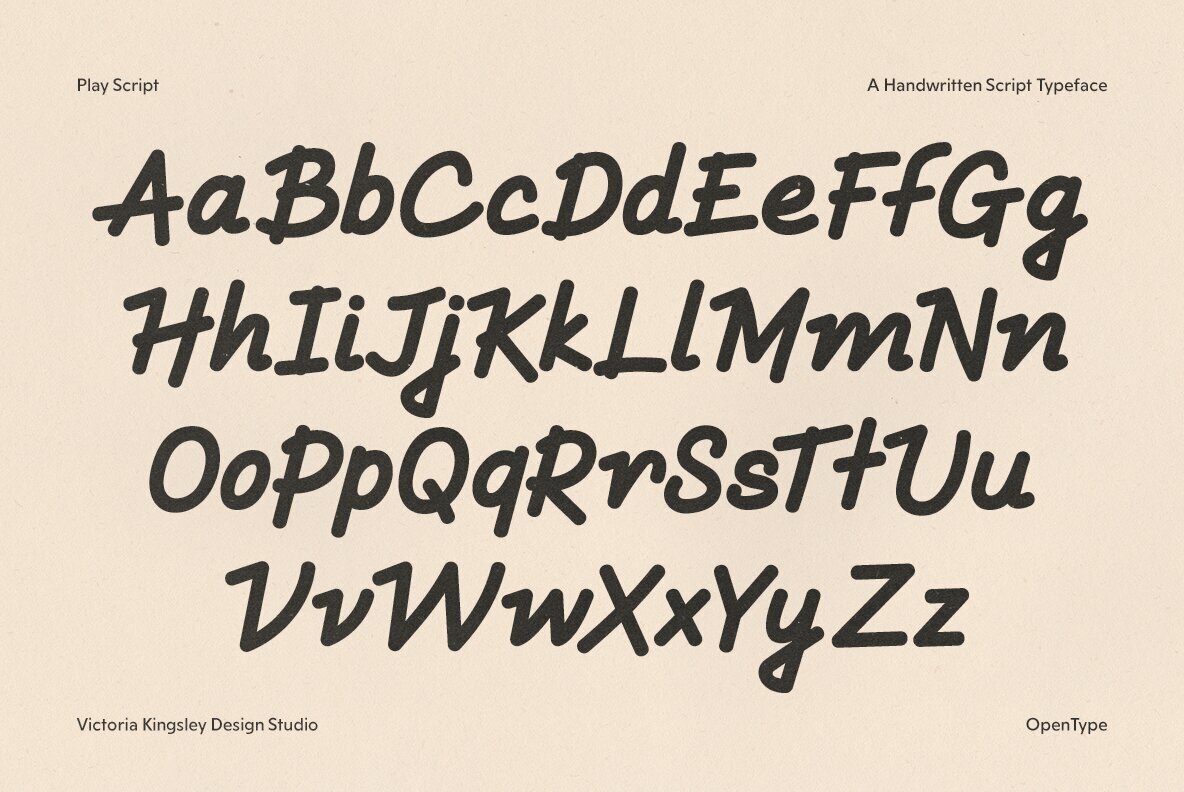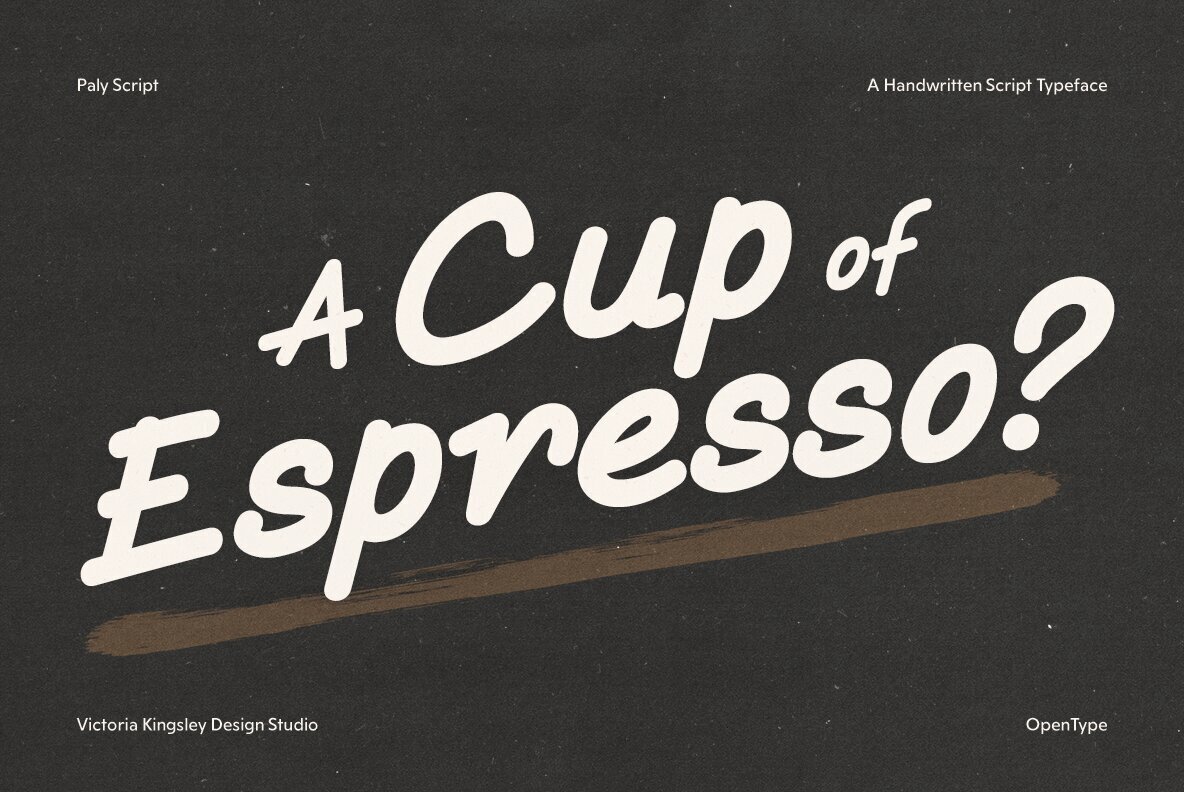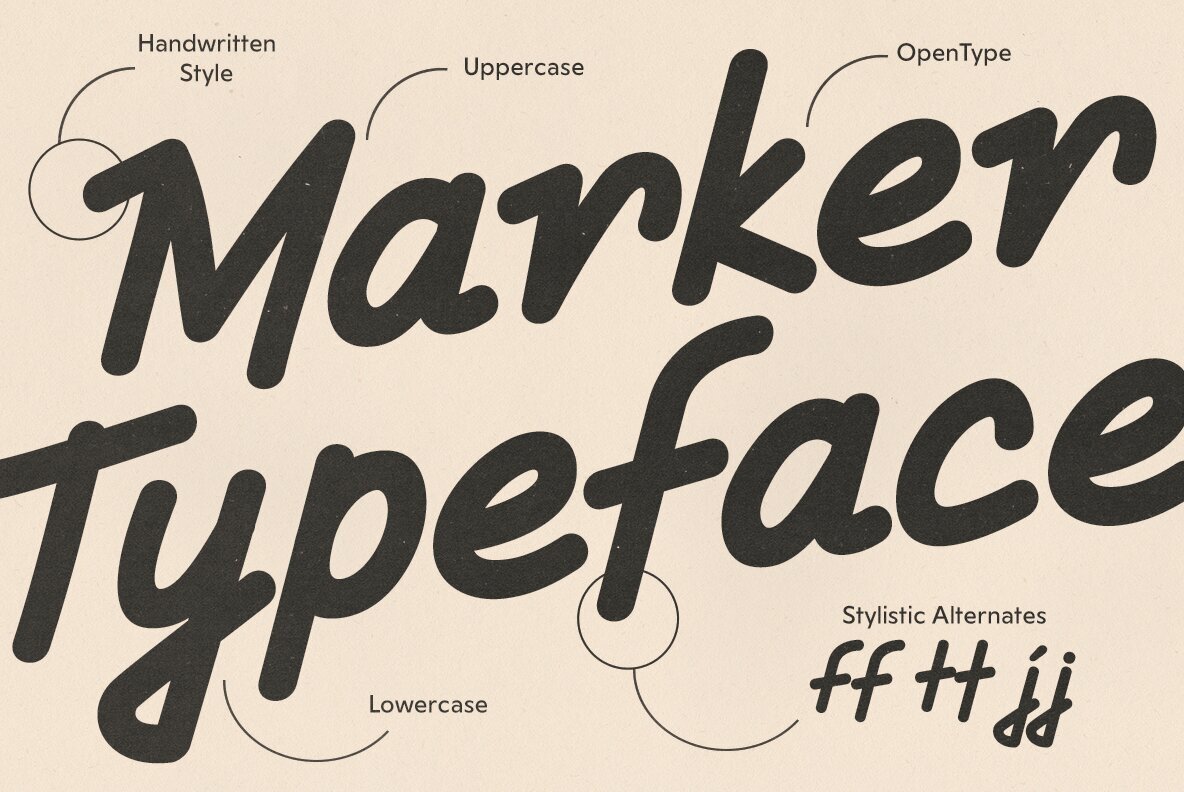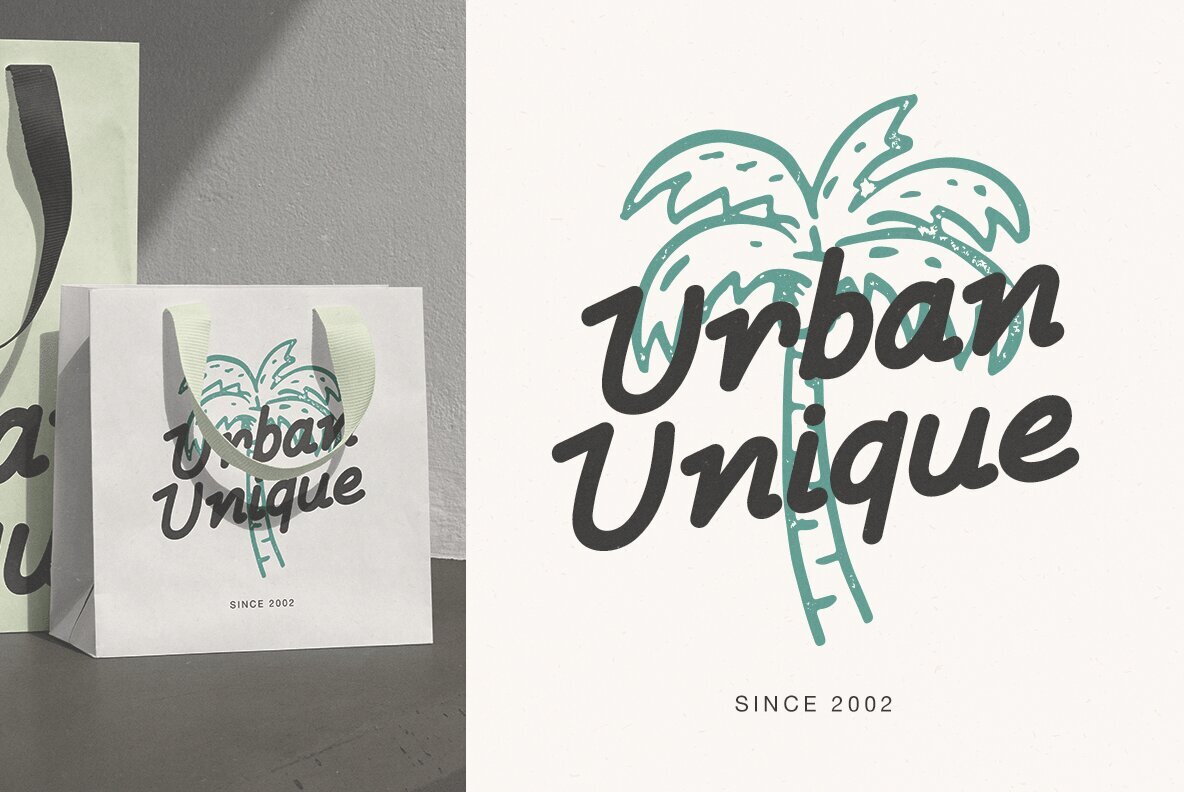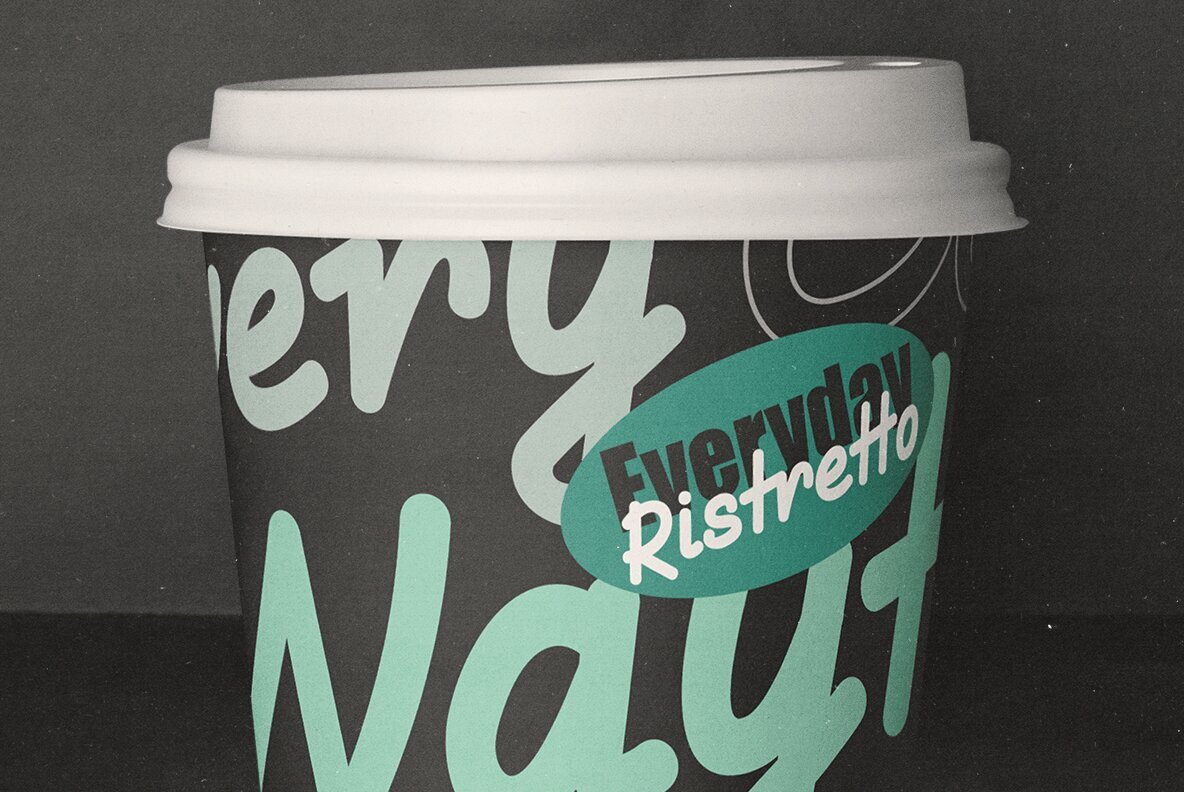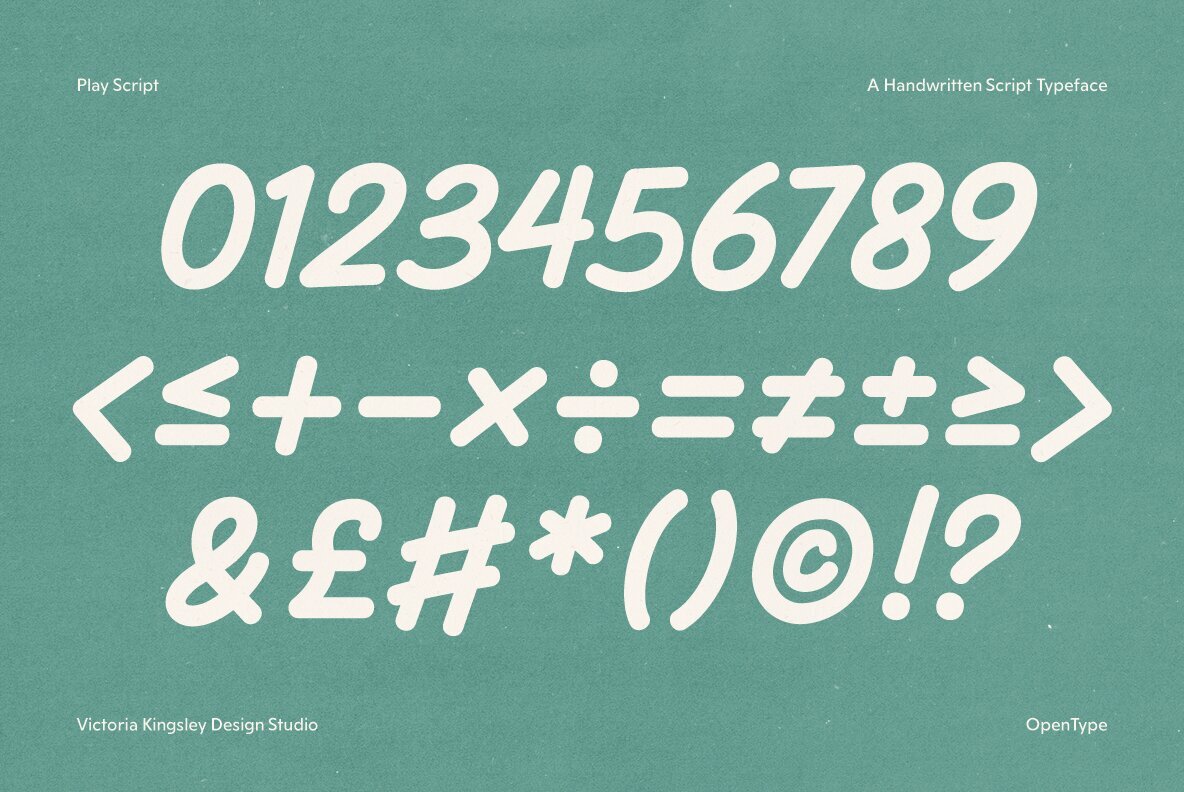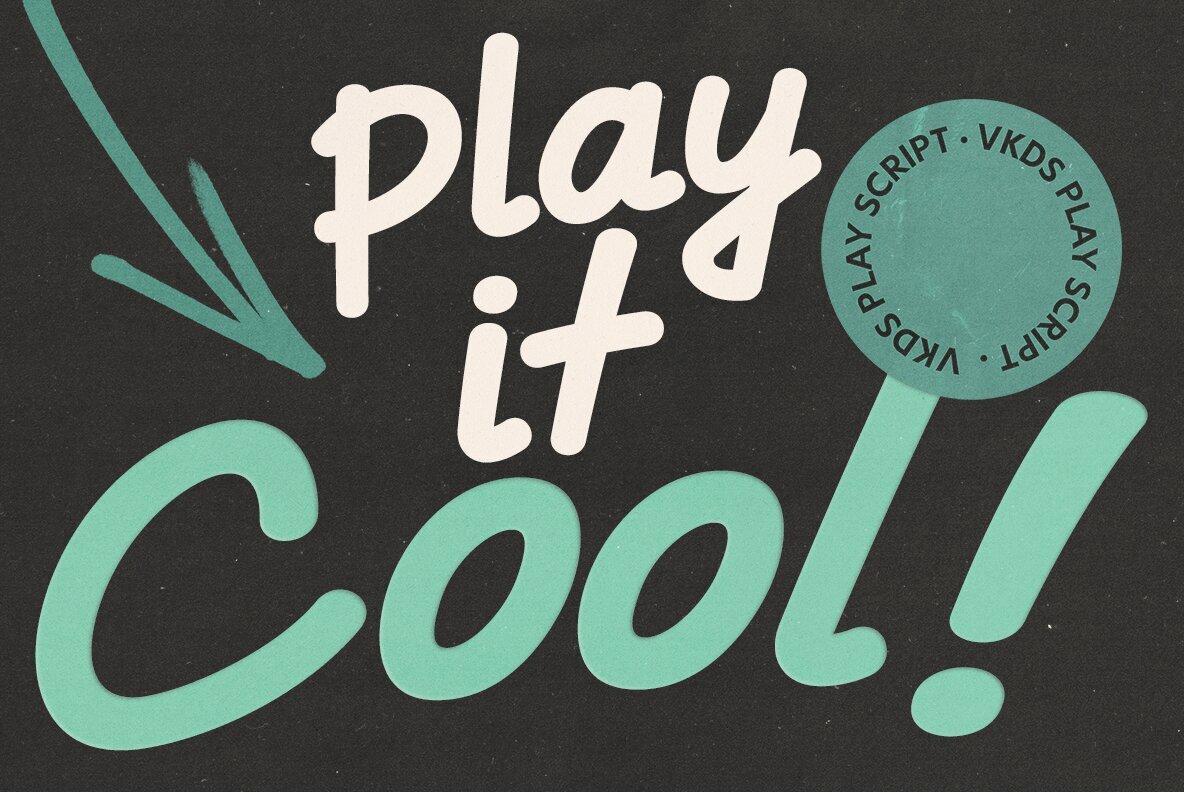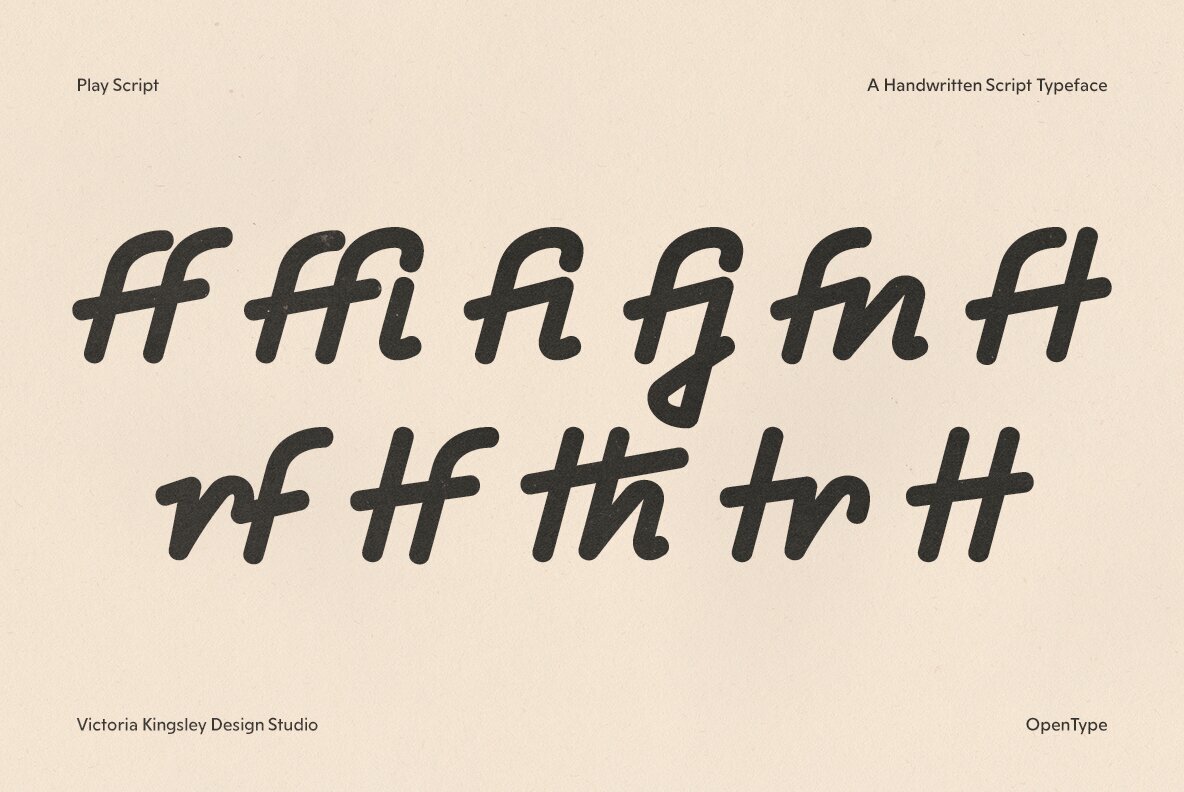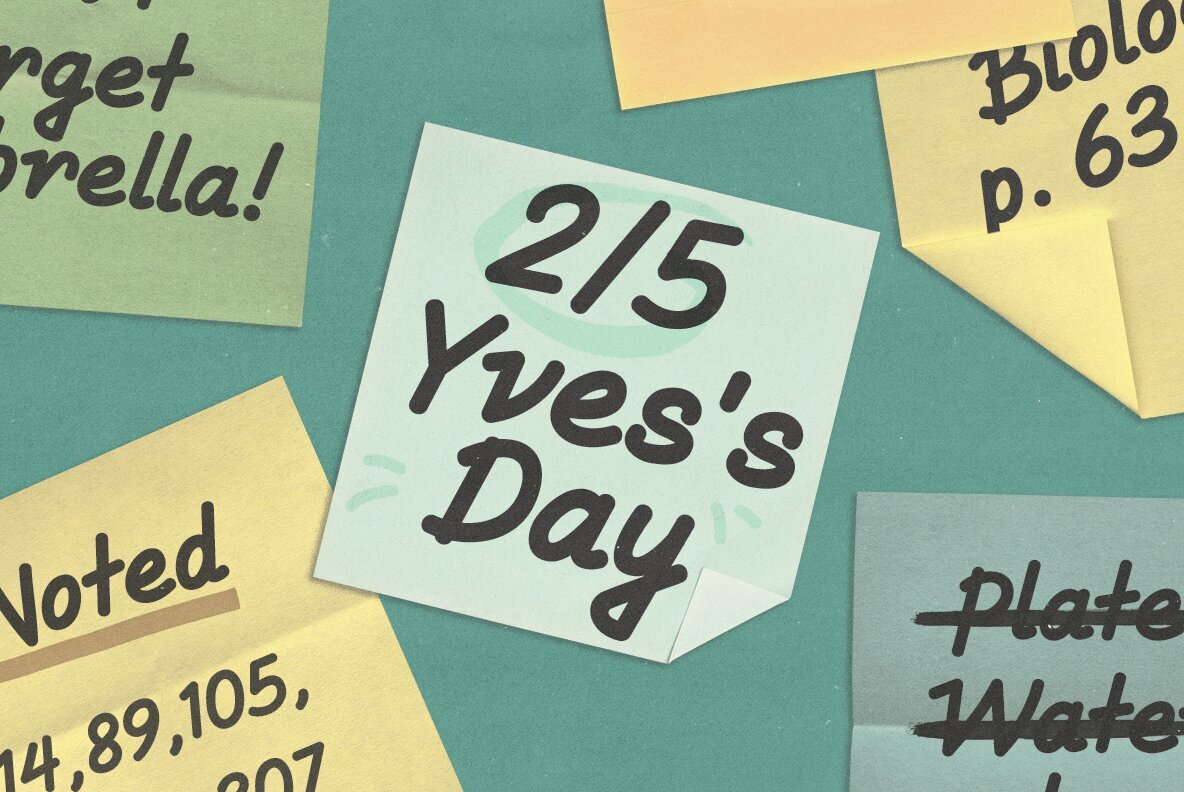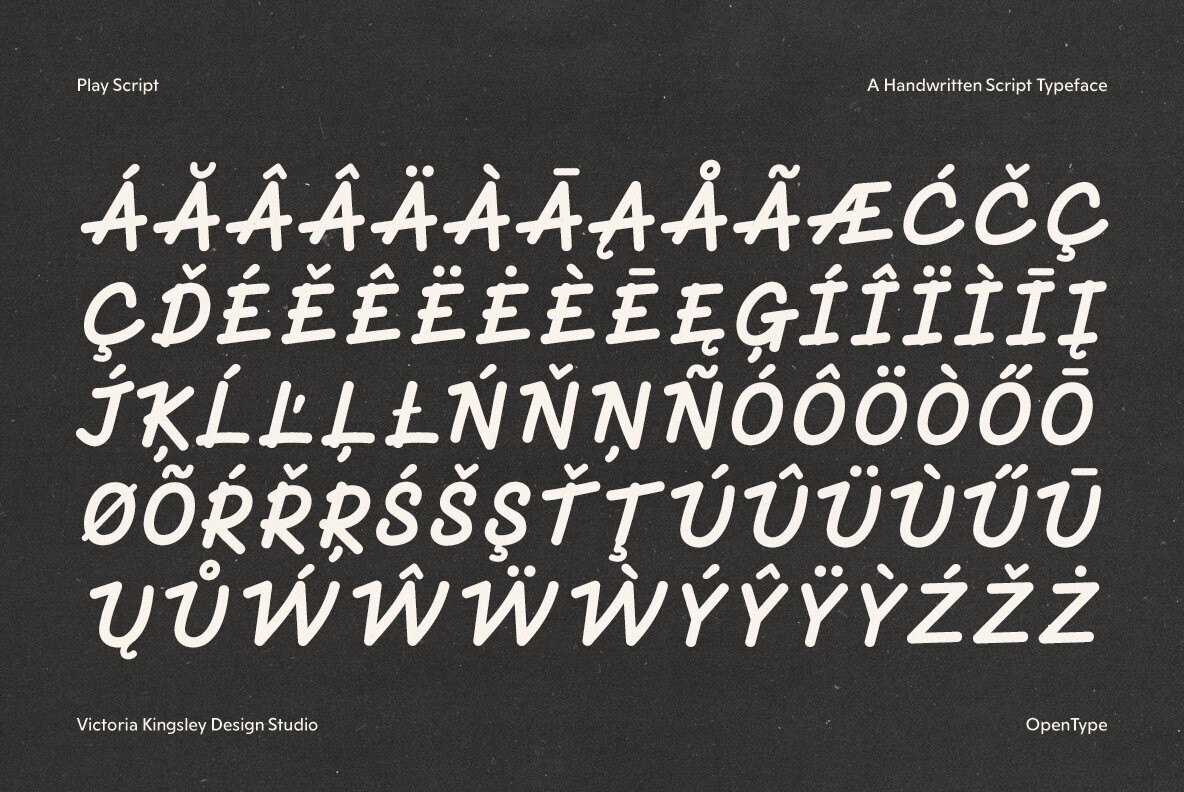
Play Script Font
Play Script Regular
Play Script, designed by Victoria Kingsley Design Studio, is a playful and informal handwritten script font that adds a touch of fun to your design projects. With over 300 glyphs and extensive OpenType features, Play Script offers versatility and creativity for various applications, especially in marketing and casual design contexts. Play Script is packed with features to enhance your design experience. It includes access to all alternates, discretionary ligatures, glyph composition and decomposition, localized forms, standard ligatures, and a stylistic set. These features provide flexibility and unique styling options, making it ideal for dynamic and expressive designs. This font is perfect for informal and fun marketing projects, such as advertisements, social media graphics, and playful branding projects. Its handwritten style and marker-like appearance add a personal and casual touch to any design, making it stand out in a crowd. Victoria Kingsley Design Studio brings a unique touch to Play Script, combining creativity and style. The handwritten and marker typeface reflects a casual and friendly vibe, suitable for a wide range of design projects that aim to convey a relaxed and approachable message. Additional products used for slideshow images:Play Script: A Fun and Informal Handwritten Font by Victoria Kingsley Design Studio
Key Features of Play Script Font
Ideal Uses for Retro Script Fonts
A Retro Script Font Designed by Victoria Kingsley